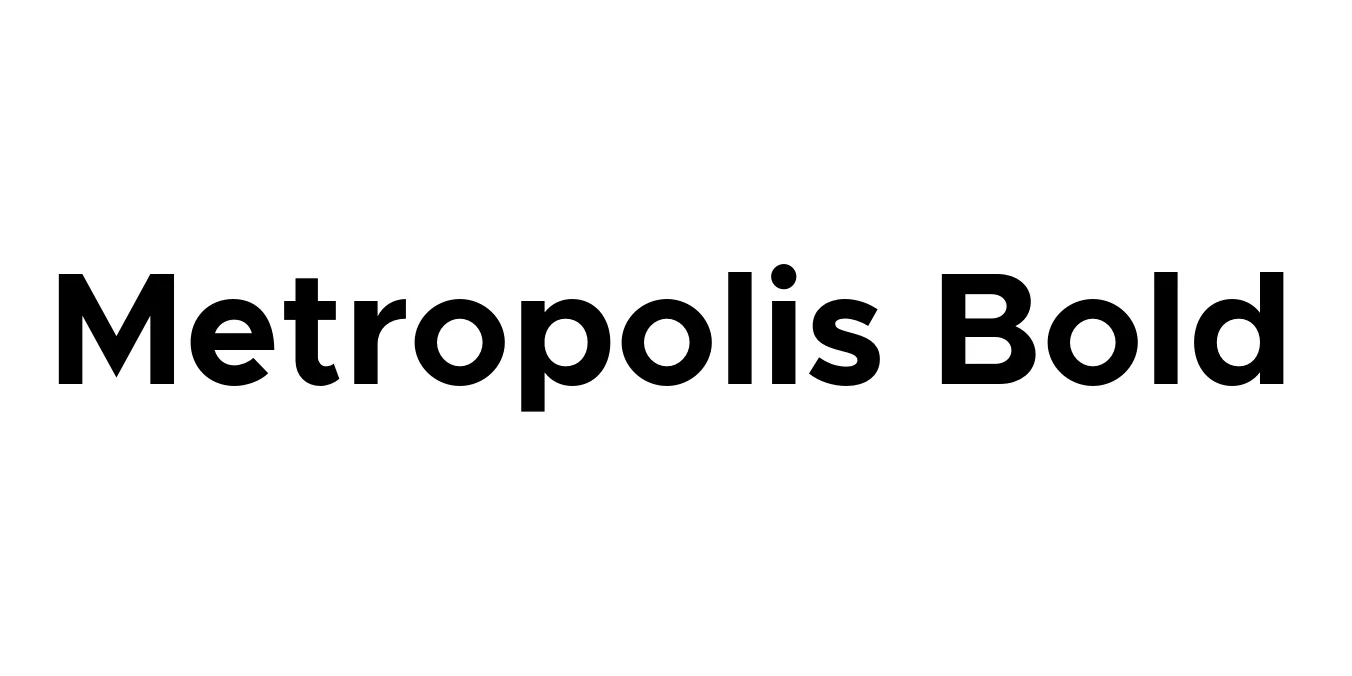
Metropolis Bold
Designed by Chris Simpson
Metropolis Bold is a modern, geometric sans-serif typeface that draws significant inspiration from renowned geometric fonts like Gotham and Proxima Nova. Designed with a focus on geometric balance and precision, this weight was specifically engineered to maintain high legibility across a wide range of digital and print applications. Its clean, minimalist structure makes it a favorite for UI/UX designers who require a sophisticated yet functional aesthetic for high-impact display purposes.
As an open-source font family, Metropolis has gained immense popularity in the global design community for its versatility and professional finish. The Bold variant is particularly effective for creating commanding headlines and strong brand identities. It bridges the gap between classic geometric forms and contemporary design requirements, making it a reliable choice for everything from corporate branding to modern web development projects.
Metropolis Bold Best Uses
Highly effective for logos and corporate identity projects requiring a modern, professional look.
Perfect for hero sections, headers, and UI elements where clarity and visual impact are paramount.
The bold weight stands out beautifully in editorial layouts, posters, and promotional brochures.
Optimized for screen readability, making it an excellent choice for buttons and bold navigational text.